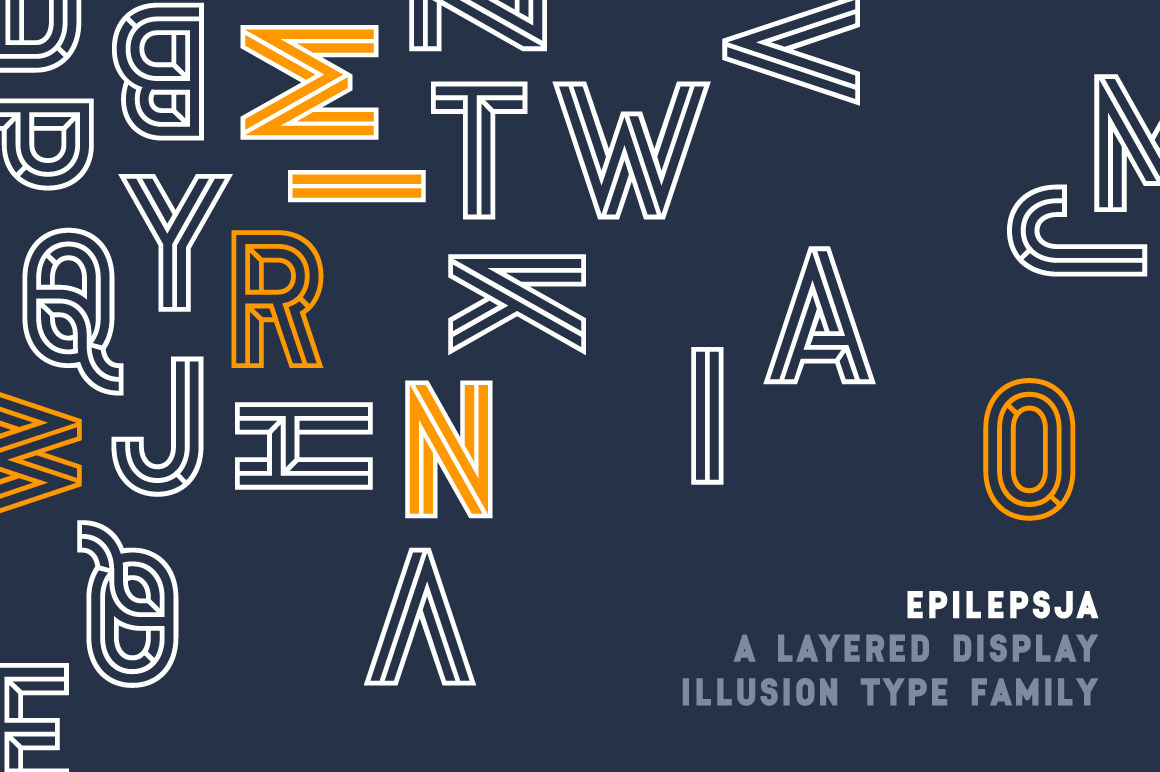
Epilepsja - a layered display family
Epilepsja is an all-caps type family perfect for display works. It has been derived from stencil-sprayed and painted letters in the city space. The glyphs are simple but unordinary. Every letter has something from 3D illusion, but is flat simultaneously. The main feature and asset of this family is the ability to create multicolor text.
Epilepsja consists of three styles: Outline, Solid and Fill. Outline is the base from which the other two styles are created. When you mix Solid with Fill, you can create two-color Outline style. Solid is neat and legible in small sizes.
There are alternative uppercase/lowercase characters, digits, diacritics of western, central and southeastern Europe and Africa, punctation and symbols including currency. Use it for posters, headlines, magazines, websites or anything you like.